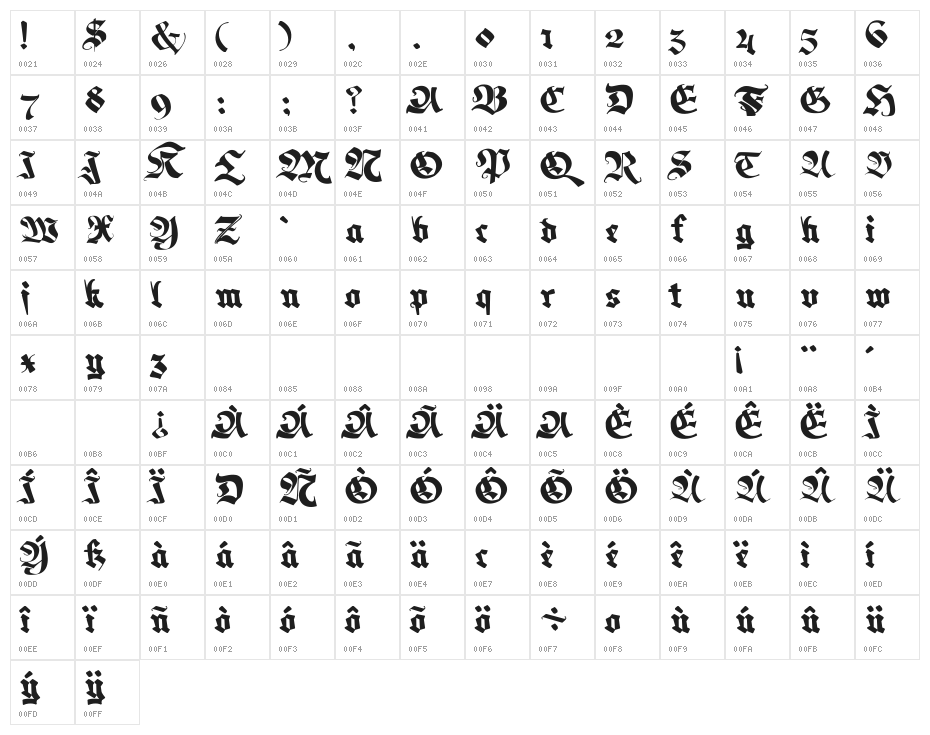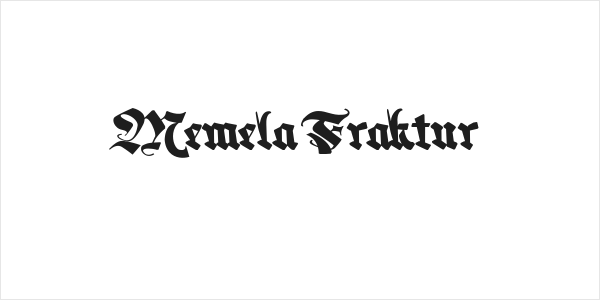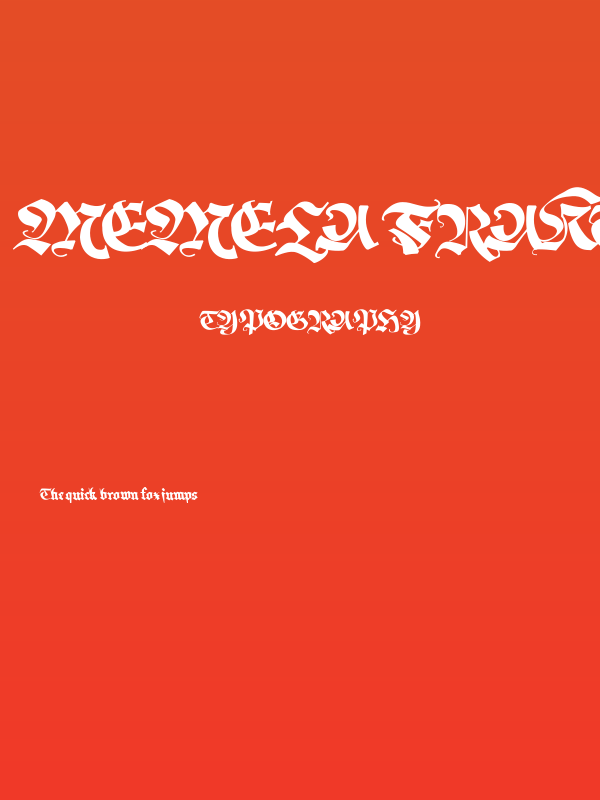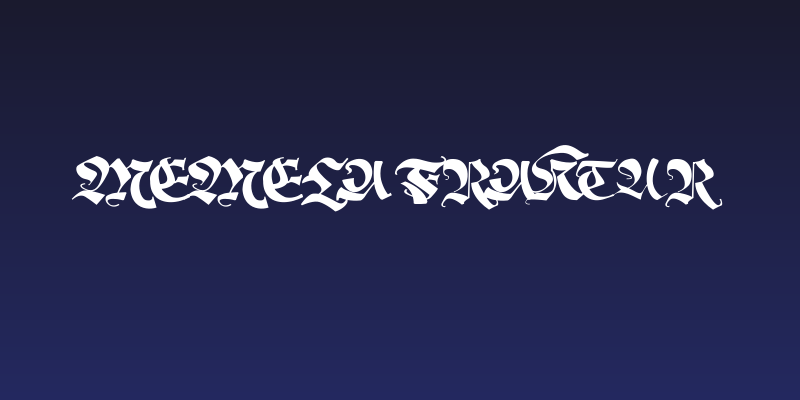
Memela Fraktur Font
Memela Fraktur Description
This font embodies the traditional characteristics of Blackletter typefaces, featuring ornate and intricate letterforms with sharp, angular lines and dramatic curves. The uppercase letters are particularly elaborate, with decorative flourishes that give a sense of historical elegance. The lowercase letters maintain a consistent style, offering a bold and striking appearance. The numerals and special characters are equally detailed, ensuring a cohesive look across all glyphs. This font is reminiscent of medieval manuscripts and Gothic architecture, making it ideal for projects that require a touch of antiquity and sophistication.
| Proposed Projects | Suitable for historical documents, invitations, certificates, branding for luxury products, and any design needing a medieval or Gothic aesthetic. |